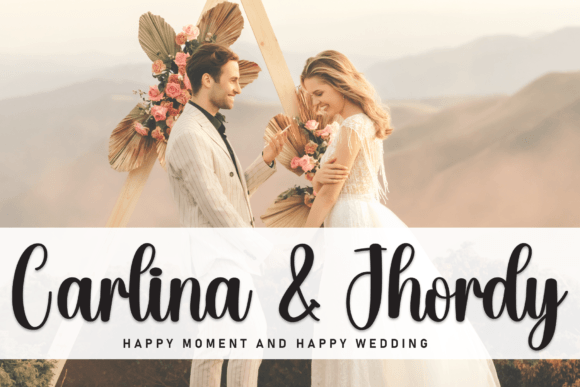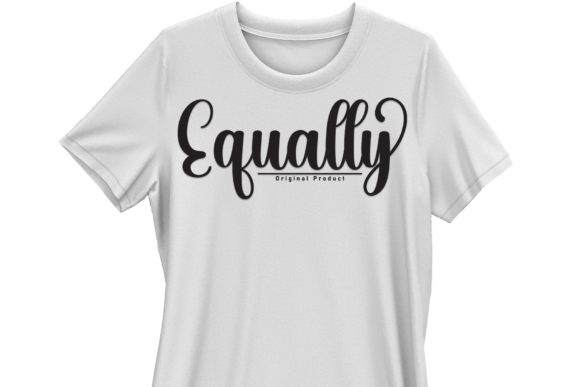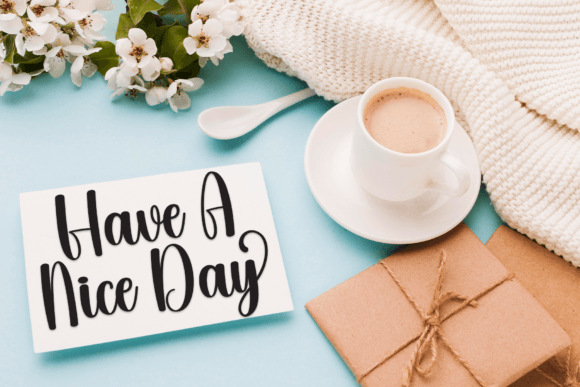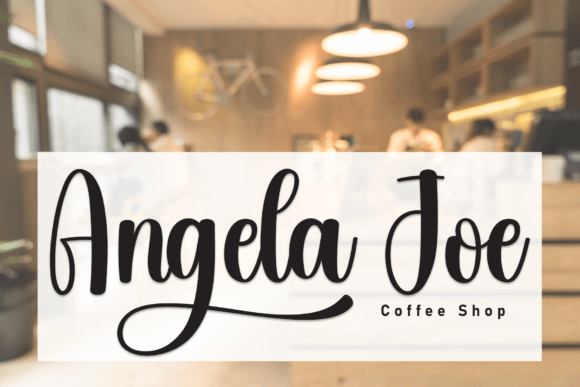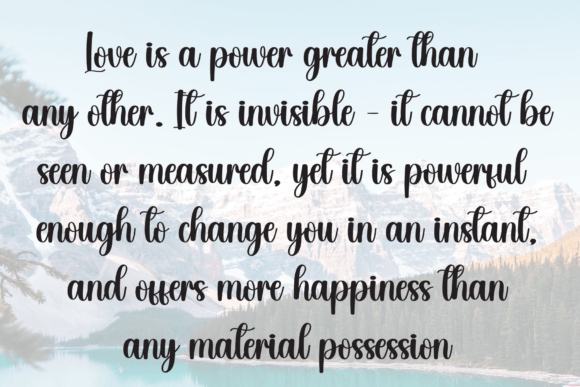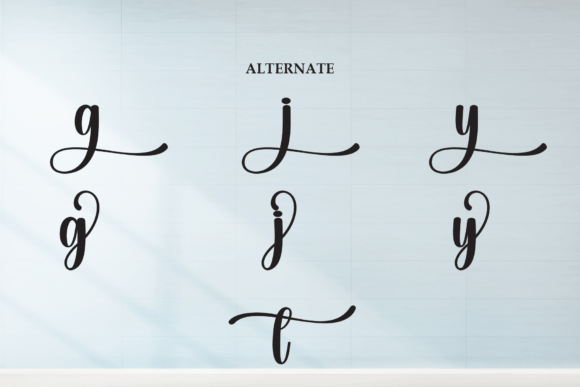
When Words Become Art
Have you ever found yourself sitting at your desk, staring at a blank sheet of paper, trying to come up with the perfect phrase to express your feelings to a loved one? The pressure to make it special, to make it memorable, can be overwhelming. But what if your words could speak for themselves, dancing across the page in a beautiful, flowing script?
Enter the Anything Font, a romantic and sweet calligraphy typeface that brings a touch of elegance to any written message. This charming font is perfect for designers looking to add a personal touch to their projects, from wedding invitations to birthday cards. With its casual yet refined feel, the Anything Font is a valuable addition to any designer’s toolkit, allowing them to create unique and memorable designs that truly stand out.
Key Features of “Anything Font”
- Font Family: “Anything Font” is a highly versatile font family available in 4 different styles (Regular, Bold, Italic, and Bold Italic).
- Size: The font family consists of 256 glyphs, covering a wide range of characters, including Latin, Greek, and Cyrillic scripts.
- Resolution: The font is optimized for high-resolution displays, making it suitable for use in digital media, including print, web, and mobile applications.
- Unique Characteristics: “Anything Font” features a unique blend of modern and vintage design elements, making it an excellent choice for creative projects and branding.
Designer Review: Anything Font
Anything Font is an interesting choice for designers. ✨ One of its standout features is its flexibility – it can be used for a wide range of projects, from modern logos to traditional newspaper headlines. The font’s ability to adapt to various contexts is a significant advantage, making it a great addition to any designer’s toolkit.
Another plus is the extensive character set, which includes a vast array of glyphs and symbols. This is particularly useful for designers working on international projects or those who need to include special characters in their designs. ✨ The font’s OpenType features also make it easy to add advanced typographic effects and styles.
Limits and Drawbacks
- ⚠️ One major limitation is the font’s overall aesthetic. While it can be versatile, it can also appear generic or unremarkable in certain contexts.
- ⚠️ The font’s thin lines can be prone to distortion when used at small sizes or in low-resolution environments.
Overall, Anything Font is a solid choice for designers who need a dependable, all-purpose font. While it may not excel in any one area, its versatility and adaptability make it a valuable addition to any design arsenal.
Anything Font is ideal for creative projects, such as logos, posters, and infographics. It’s also suitable for use in branding and marketing materials, such as business cards and brochures. Additionally, the font’s unique features make it a great choice for digital design projects, such as website headers and social media graphics.